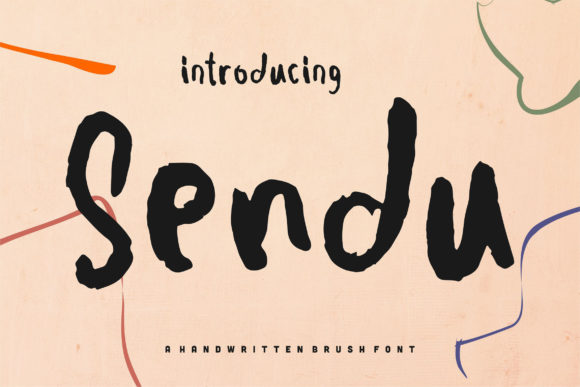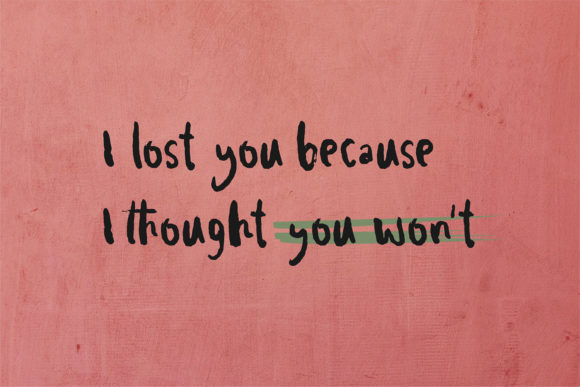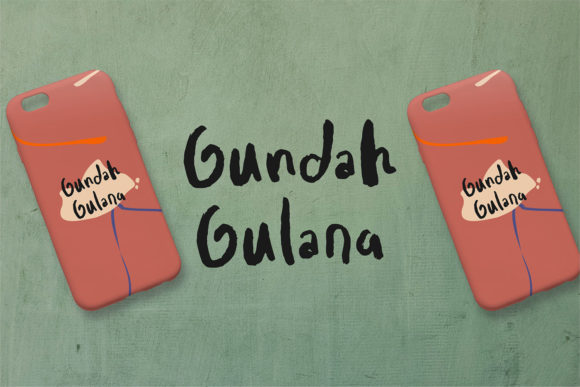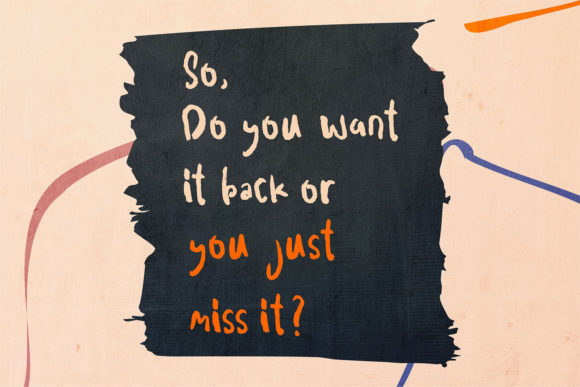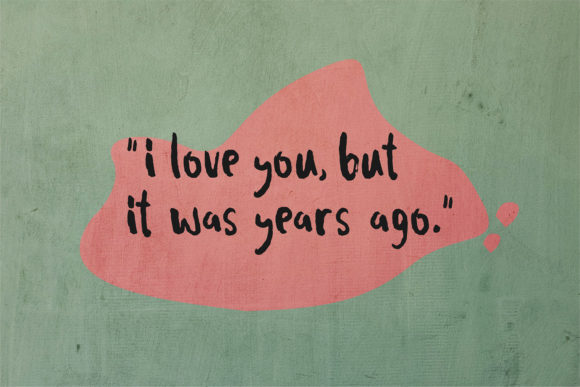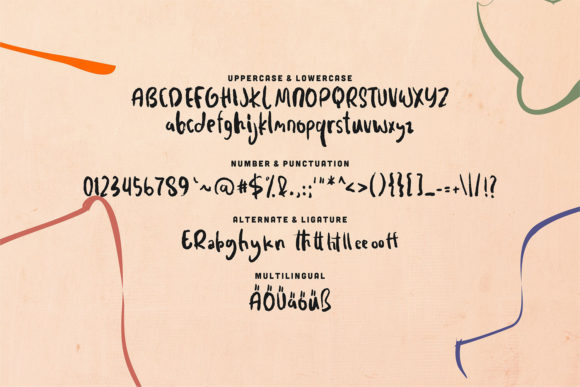
Sendu Font
About Sendu Font
Sendu is a beautiful free-flowing handwritten font perfect for greeting and thank you cards, branding materials, business cards, quotes, posters, and more! Add it to your designs, and it will turn any creative idea into a true piece of art!